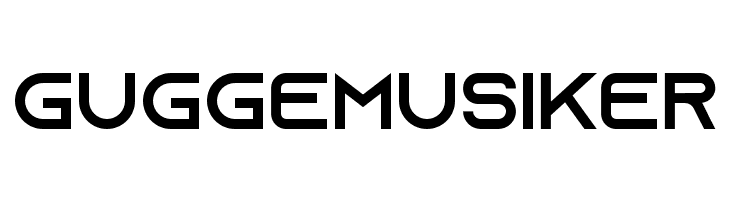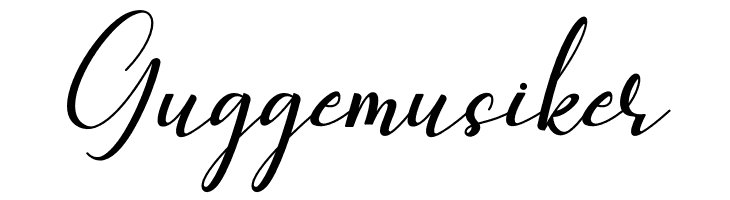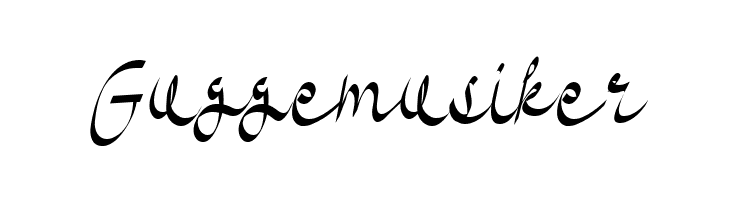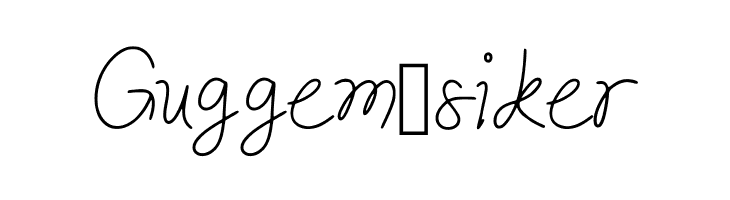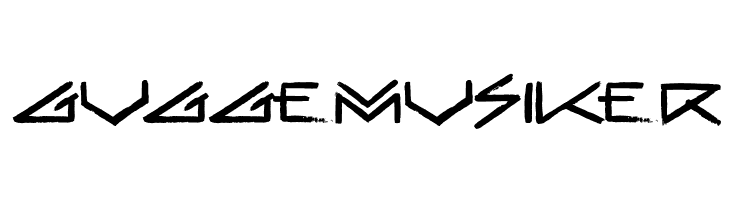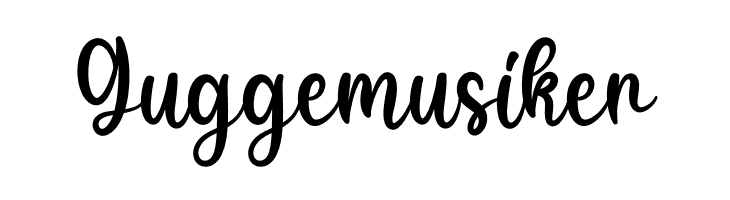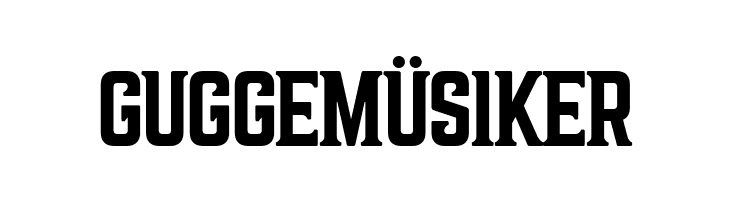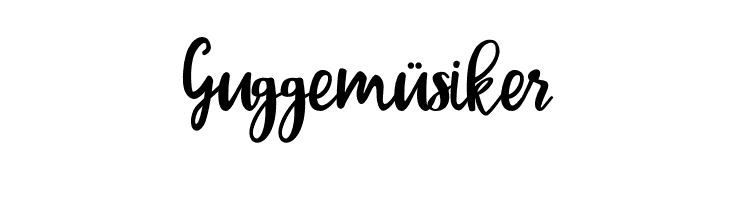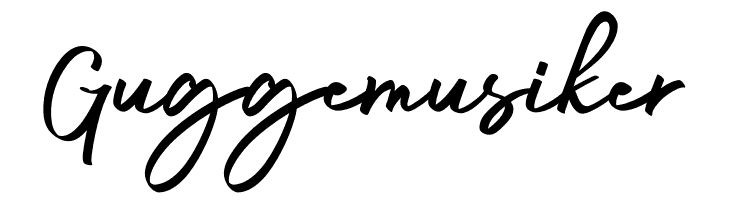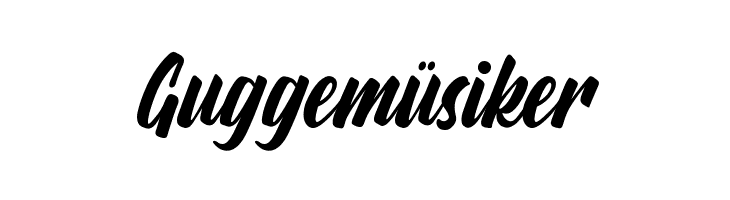
A modern, elegant font with clean lines and excellent readability.
A clean, modern sans-serif font with a minimalist design.
A clean, modern font with uniform stroke width and excellent readability.
A modern sans-serif font with clean lines and a professional appearance.
A dynamic, fluid handwritten script with elegant, flowing characters.
A classic serif font with elegant thin strokes and pronounced serifs.
A bold, serif font with strong strokes and a classic yet modern aesthetic.
A clean, modern sans-serif font with geometric letterforms.
A bold, serif font with a vintage, authoritative style.
A playful, rounded font with a smooth, bold appearance and friendly style.
A bold, flowing script font with elegant, connected characters.
A geometric, modern font with clean lines and a futuristic aesthetic.
A playful and whimsical font with curly, decorative letterforms.
A rugged, distressed font with sharp, angular lines and a hand-drawn appearance.
A bold, playful font with thick, rounded strokes and a bubbly appearance.
A dynamic and elegant script font with fluid, cursive strokes.
A classic serif font with elegant strokes and moderate contrast.
A bold, classic serif font with elegant strokes and high readability.
A bold, italic serif font with classic elegance and dynamic style.
A bold, classic serif font with strong, defined strokes and sharp serifs.
A bold, italic serif font with classic elegance and strong presence.
A classic serif typeface with elegant italic styling and balanced contrast.
A bold, expressive handwritten font with a smooth, brush-like texture.
A playful, handwritten font with thin, flowing lines and a whimsical style.
A bold, angular font with a futuristic, tech-inspired design.
A bold, expressive handwritten font with fluid, connected letterforms.
An elegant, flowing script font with high contrast and modern appeal.
A whimsical, cursive font with a flowing, handwritten style.
A playful and elegant handwritten script font with fluid, connected letters.